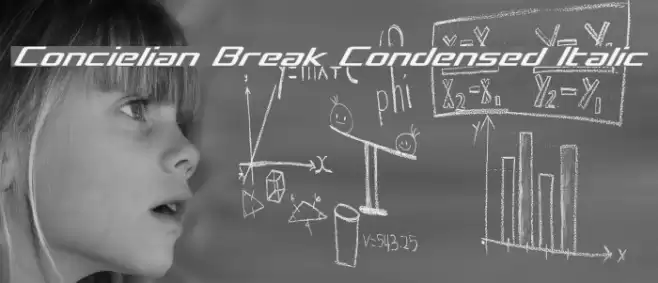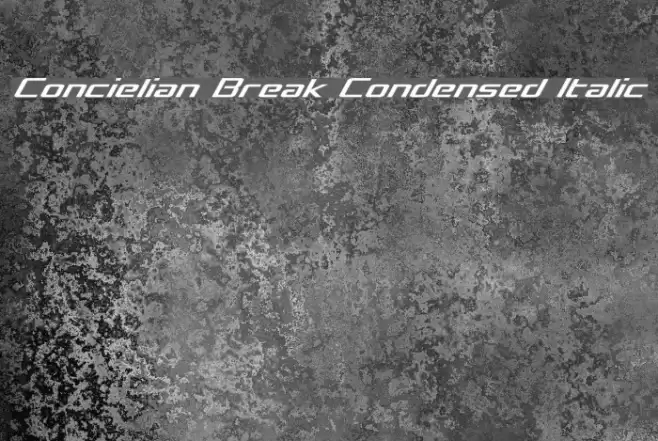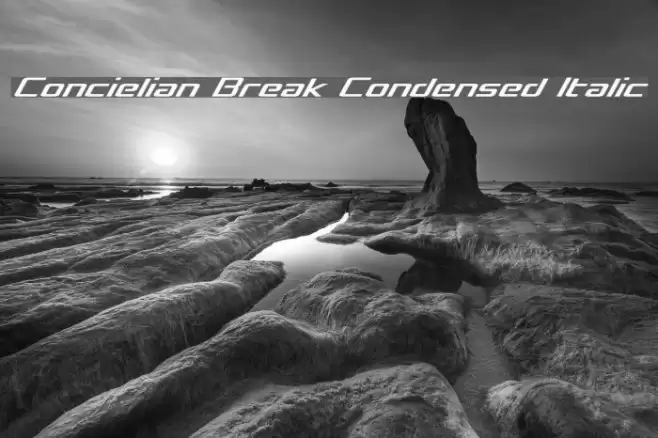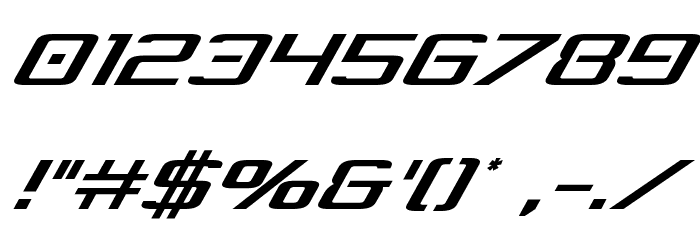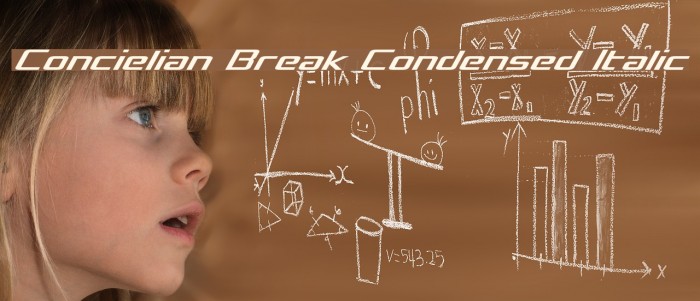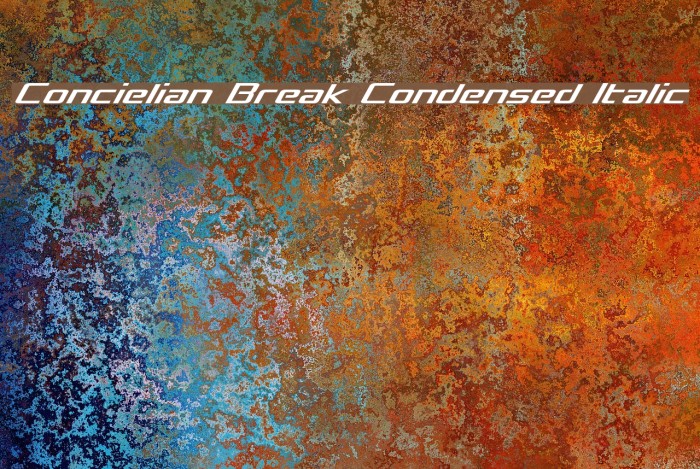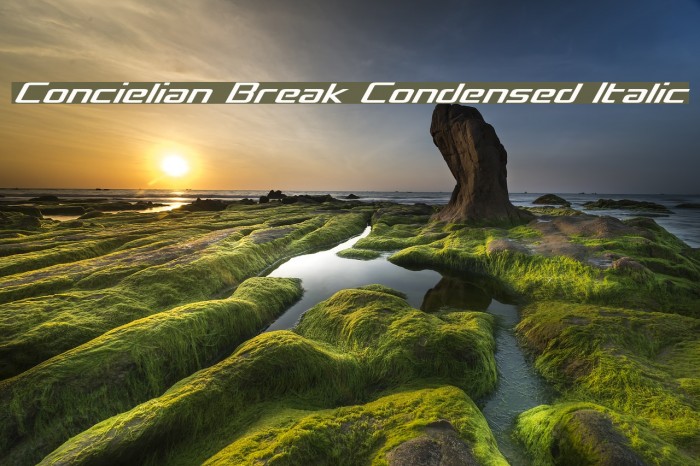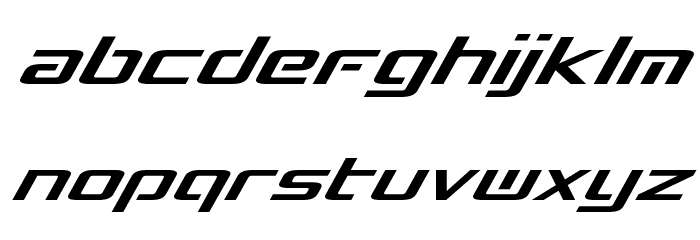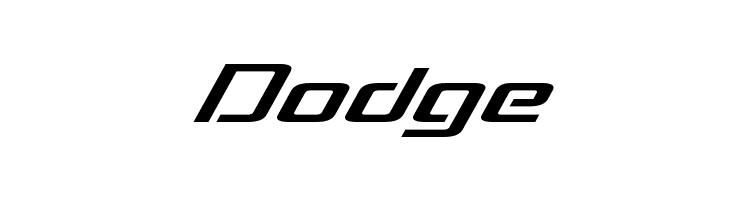
Concielian Break Condensed Italic Font
Concielian Break Condensed Italic Description
This font exhibits a sleek, modern design with a condensed and italicized style. The characters are sharply angled, giving a sense of motion and dynamism. The uppercase letters are bold and assertive, while the lowercase letters maintain a consistent flow with a slightly narrower structure. The numerals are distinct and easy to read, complementing the overall aesthetic. Special characters are well-integrated, maintaining the font's cohesive appearance. The font's condensed nature allows for efficient use of space, making it suitable for various design applications.
A sleek, modern, condensed italic font with dynamic angles from Uncategorized fonts.
- Proposed Projects: Ideal for branding, advertising, sports-related designs, and modern digital interfaces.
- Character Spacing: Tight
- Use Case: Headlines, Logos, Branding